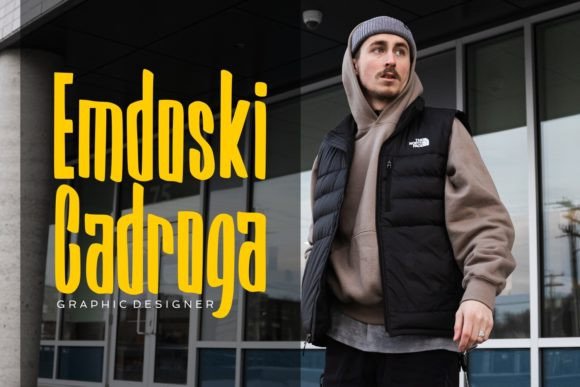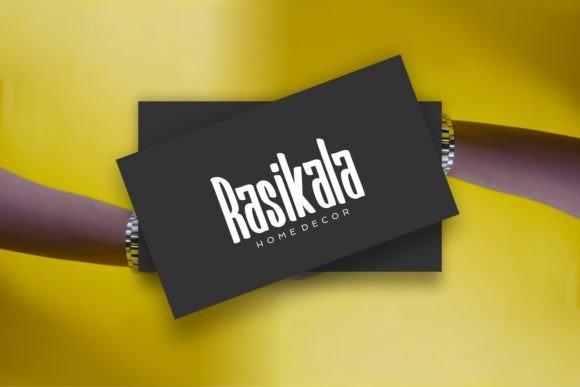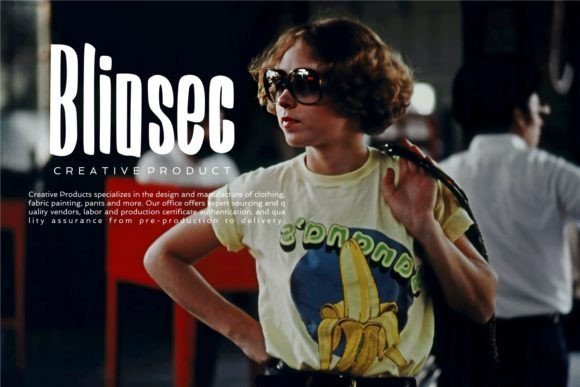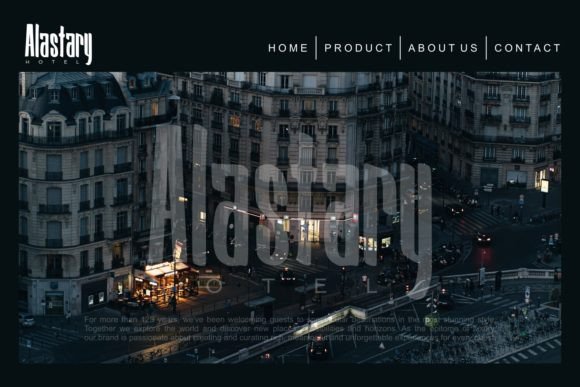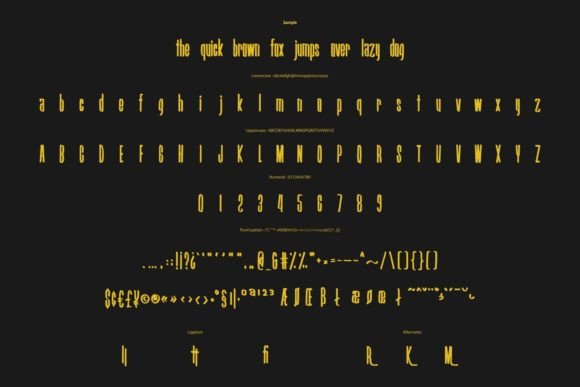
Make a Statement with the Power of Typography
Have you ever found yourself staring at a blank page, trying to come up with the perfect design concept? You know, that moment when the words just aren’t flowing and you need something to spark your creativity? That’s where the Helphoted Font comes in – a game-changing, attention-grabbing tool that’s sure to get your design juices flowing.
Helphoted – Bold Condensed is a powerful and compact font that’s perfect for making a bold statement. Its strong, thick letters are designed to catch the eye and leave a lasting impression. Whether you’re creating impactful headers or eye-catching designs, Helphoted’s condensed style adds a touch of modern flair that’s sure to elevate your projects.
Helphoted Font Key Features
- Unique Characteristics: Helphoted Font features a unique blend of modern and vintage elements, with intricate details and subtle texture, making it perfect for creative and artistic projects.
- Character Set: The font includes a comprehensive character set, including uppercase and lowercase letters, numbers, punctuation marks, and special characters, making it versatile for various applications.
Helphoted Font Review
First off, I want to say that I was pleasantly surprised by Helphoted Font. ✨ The font has a unique and modern design that’s perfect for digital products, apps, and websites. The clean lines and sans-serif style make it easy to read and scan, even on smaller screens. ✨ The font also comes with a range of weights and styles, making it versatile and adaptable to different design needs.
However, I did encounter some limitations while working with Helphoted Font. ⚠️ One of the main issues is that it doesn’t support certain languages, such as Arabic and Chinese. This can be a significant limitation for designers working on international projects. ⚠️ Additionally, the font can be a bit too bold in certain weights, which can make it difficult to read in large blocks of text.
Overall, I think Helphoted Font is a solid choice for designers looking for a modern and clean font. While it may have some limitations, its strengths outweigh its weaknesses. With a little creativity and flexibility, Helphoted Font can be a valuable addition to any design project.
- Unique and modern design
- Clean lines and sans-serif style
- Range of weights and styles
- Perfect for digital products, apps, and websites
Tips for Getting the Most Out of Helphoted Font
Use Helphoted Font for creating eye-catching headlines and titles. This font is ideal for adding a touch of elegance and sophistication to your designs. To get the most out of it, experiment with different font sizes and styles to create a visually appealing contrast.
Helphoted Font is commonly used in:
– Magazine and newspaper headlines
– Social media posts and advertisements
– Branding and logo design
– Infographics and data visualizations
Alternatives to “Helphoted Font” for Designers
Open Sans is a clean and modern sans-serif font that works well for digital products, apps, and websites. It’s highly legible and versatile, making it suitable for a wide range of design projects.
Compared to Helphoted Font, Open Sans is more straightforward and less ornate, making it a better choice for designs that require a clean and simple aesthetic. Open Sans also has a larger character set and better language support.